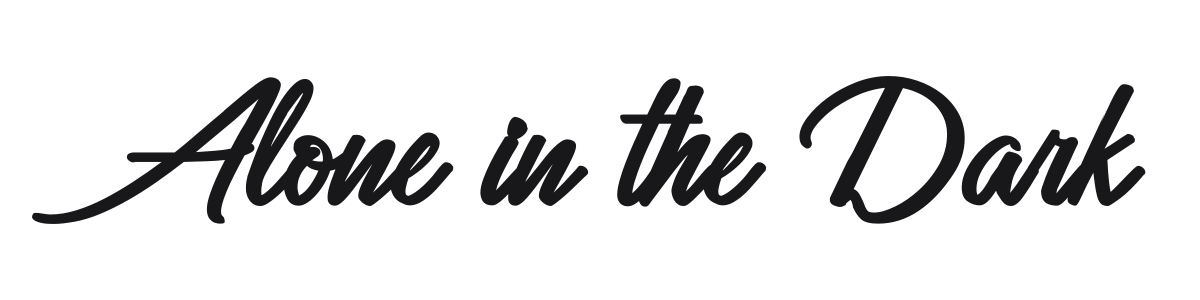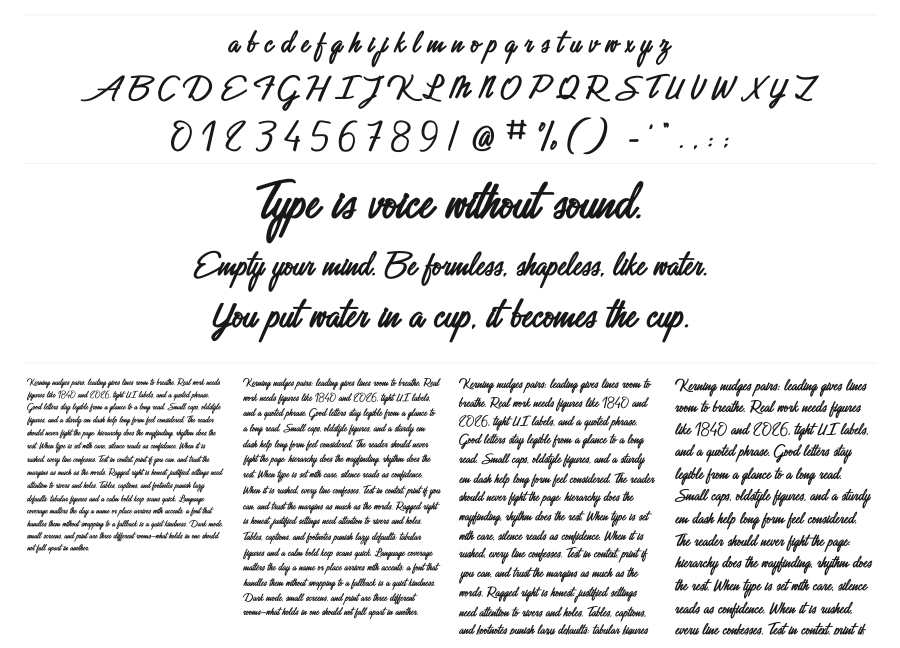
Alone in the Dark
Alone in the Dark is a bold, flowing brush script with strong contrast and sweeping connected strokes that give it a handcrafted marker feel. The pronounced slant and thick-thin stroke variation bring real energy to headlines and branding work. It sits comfortably in the tradition of mid-century American hand-lettering.